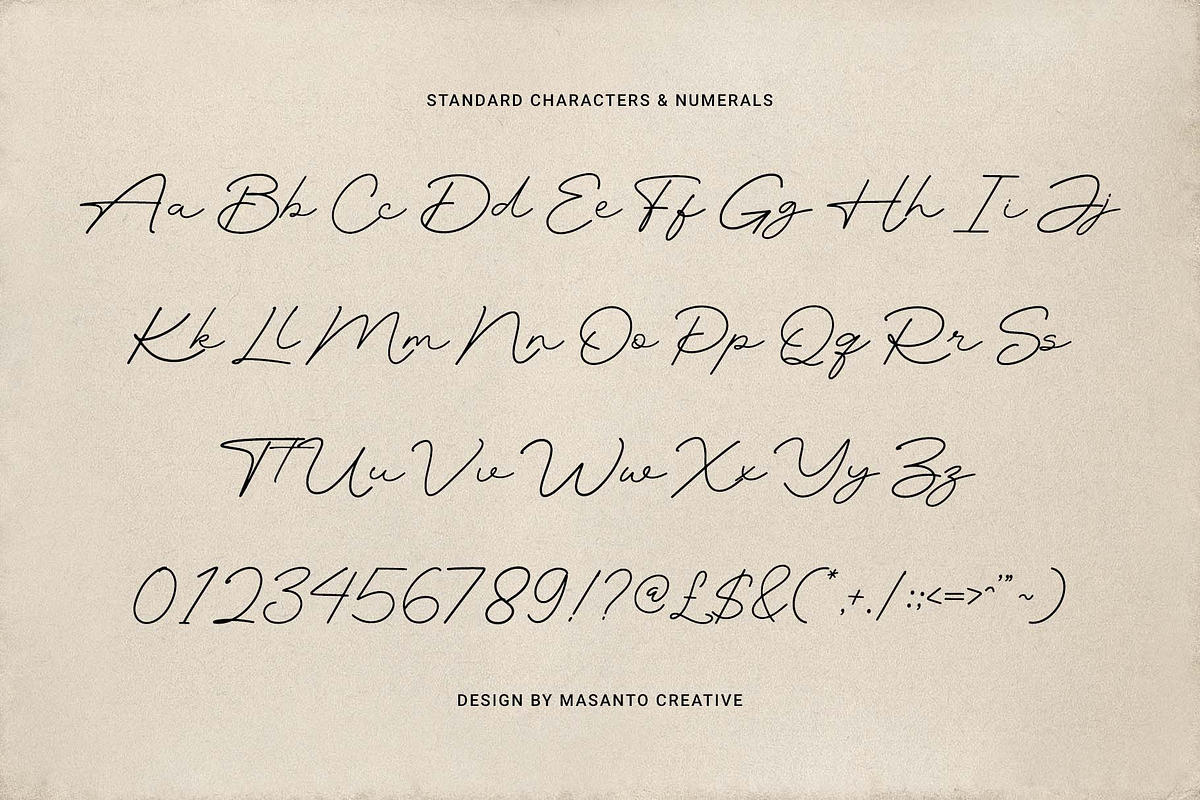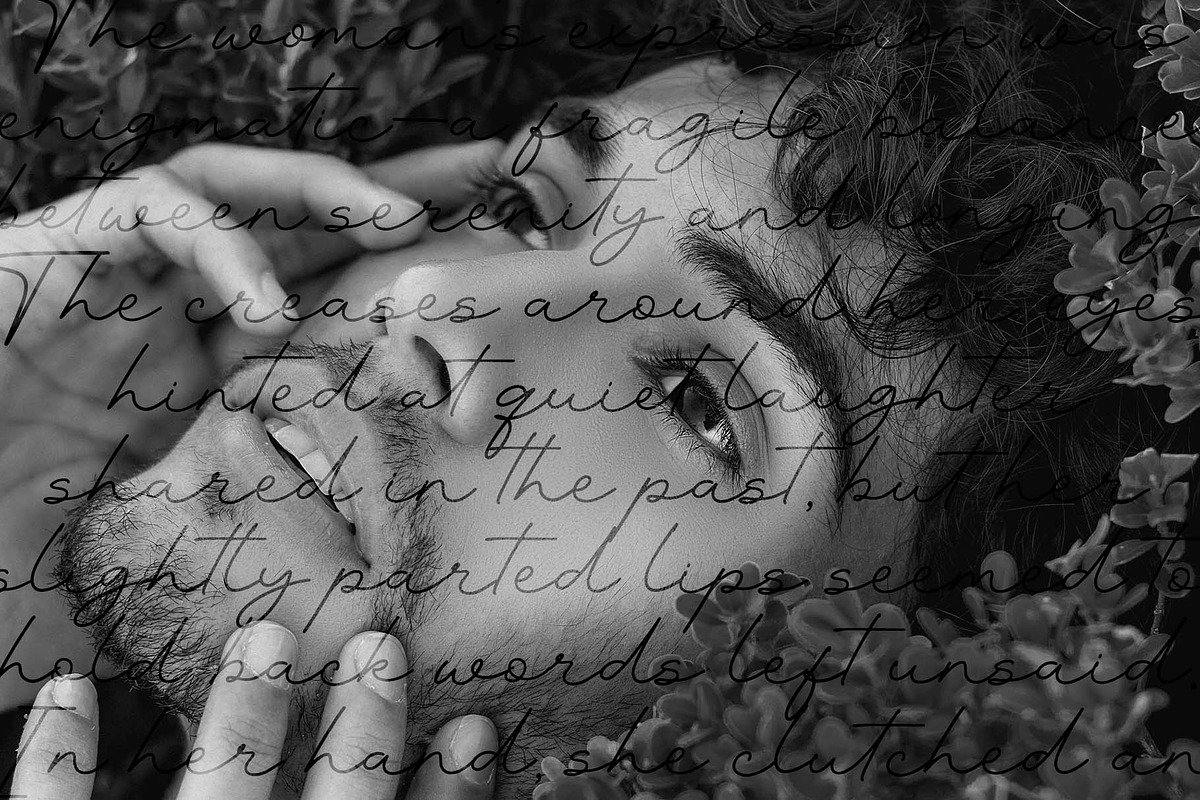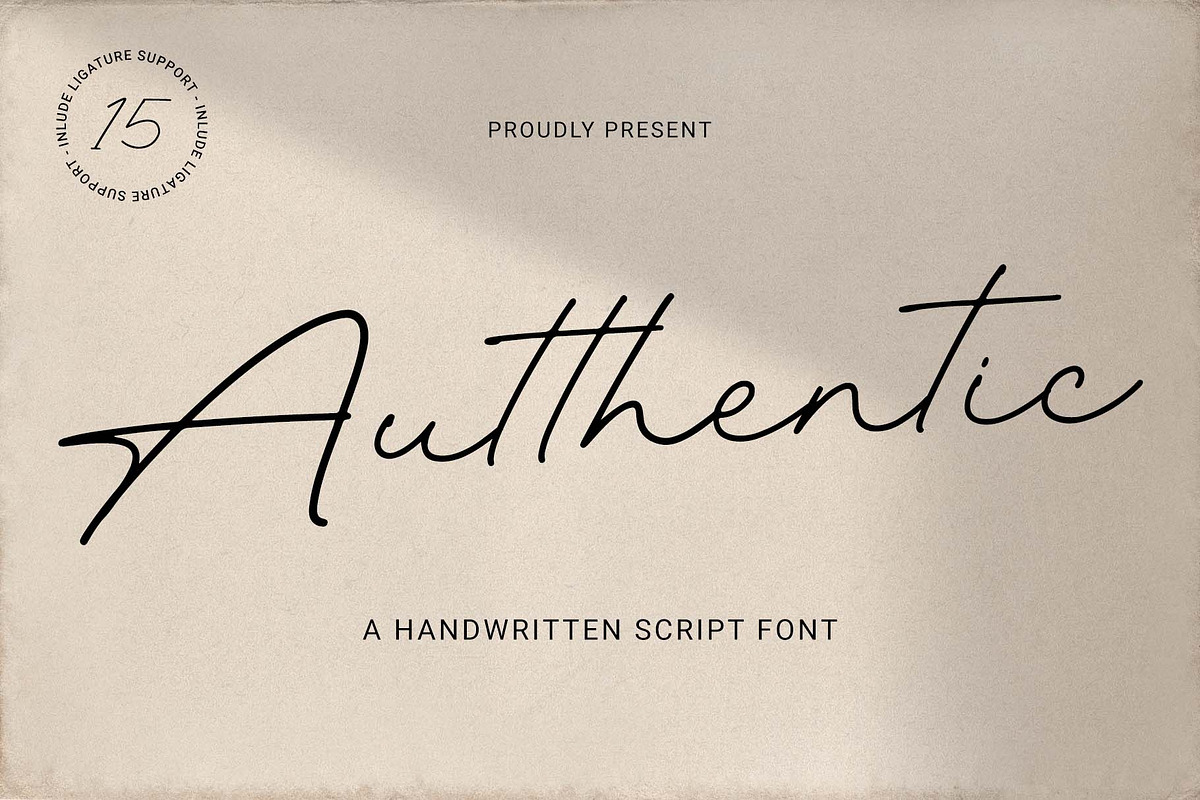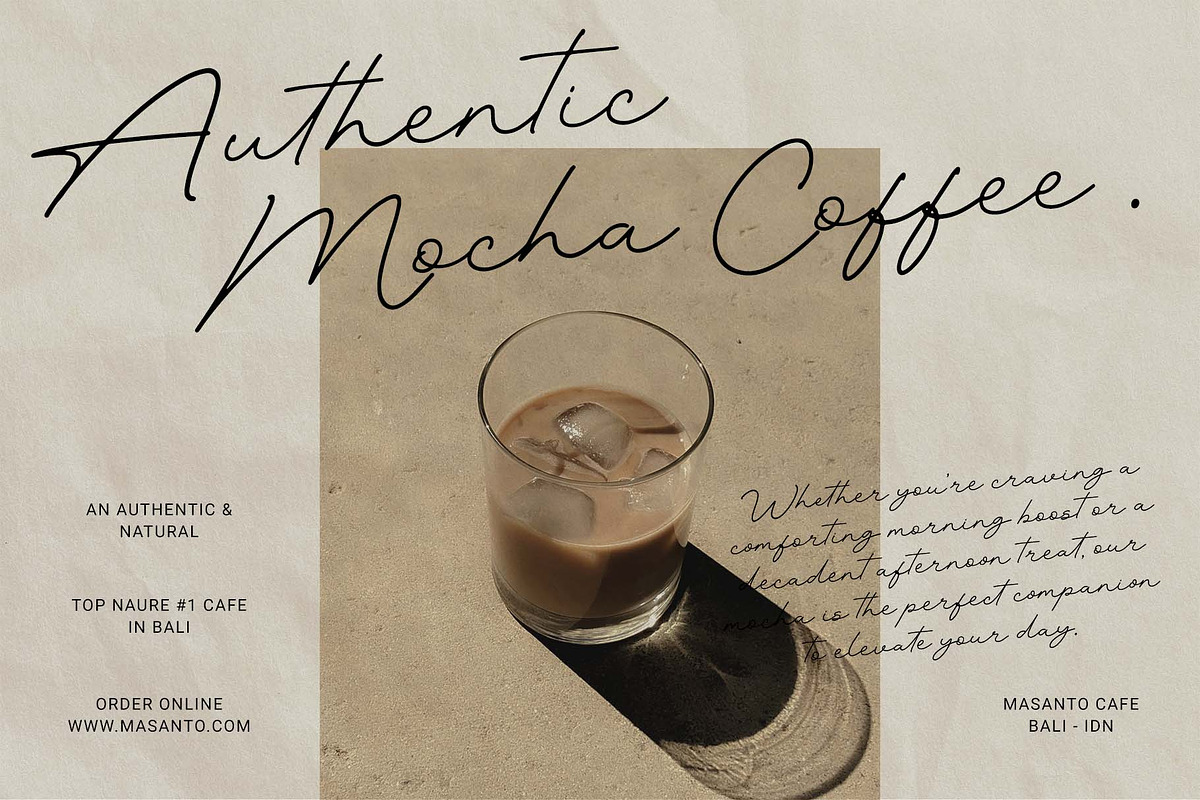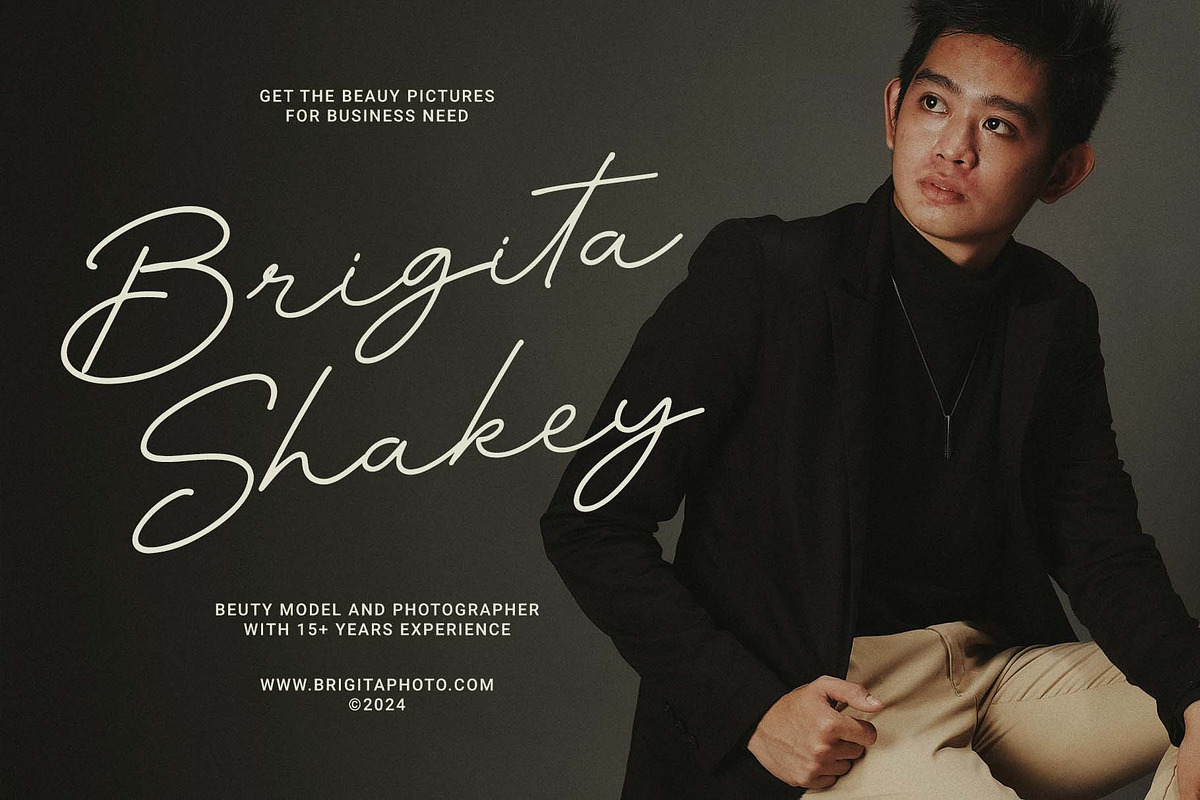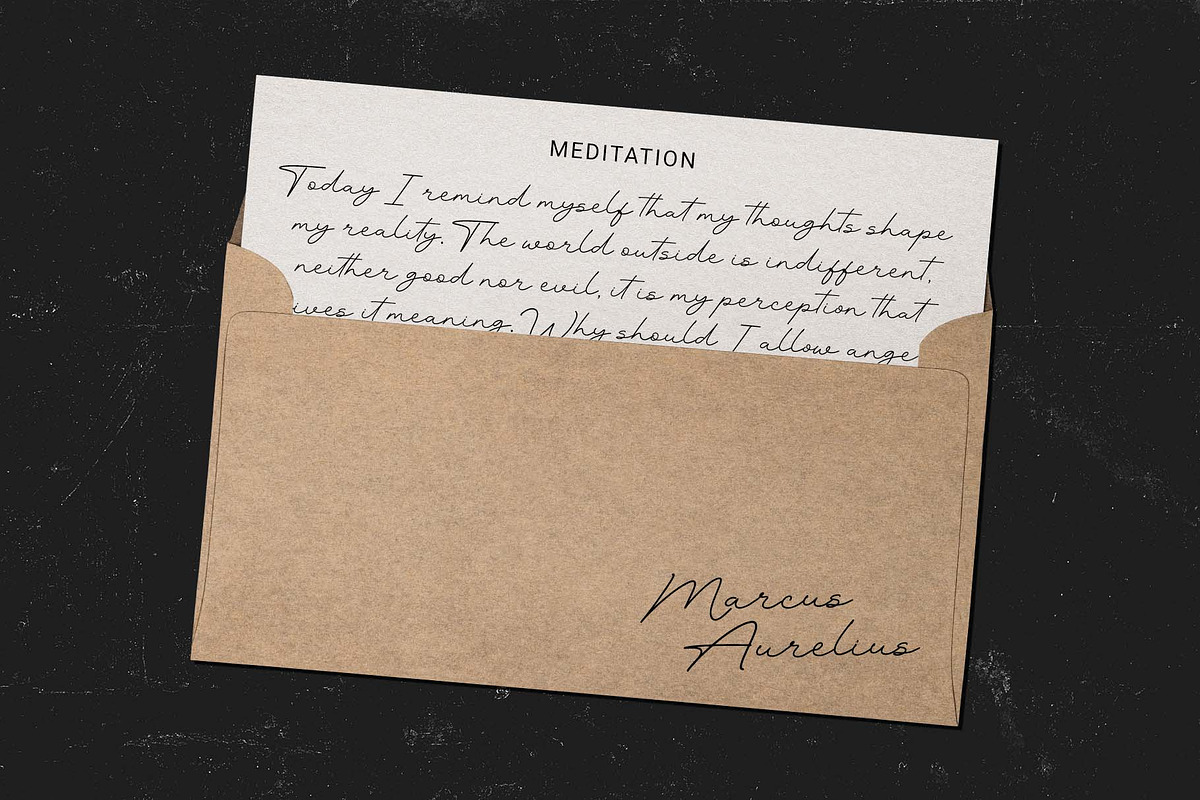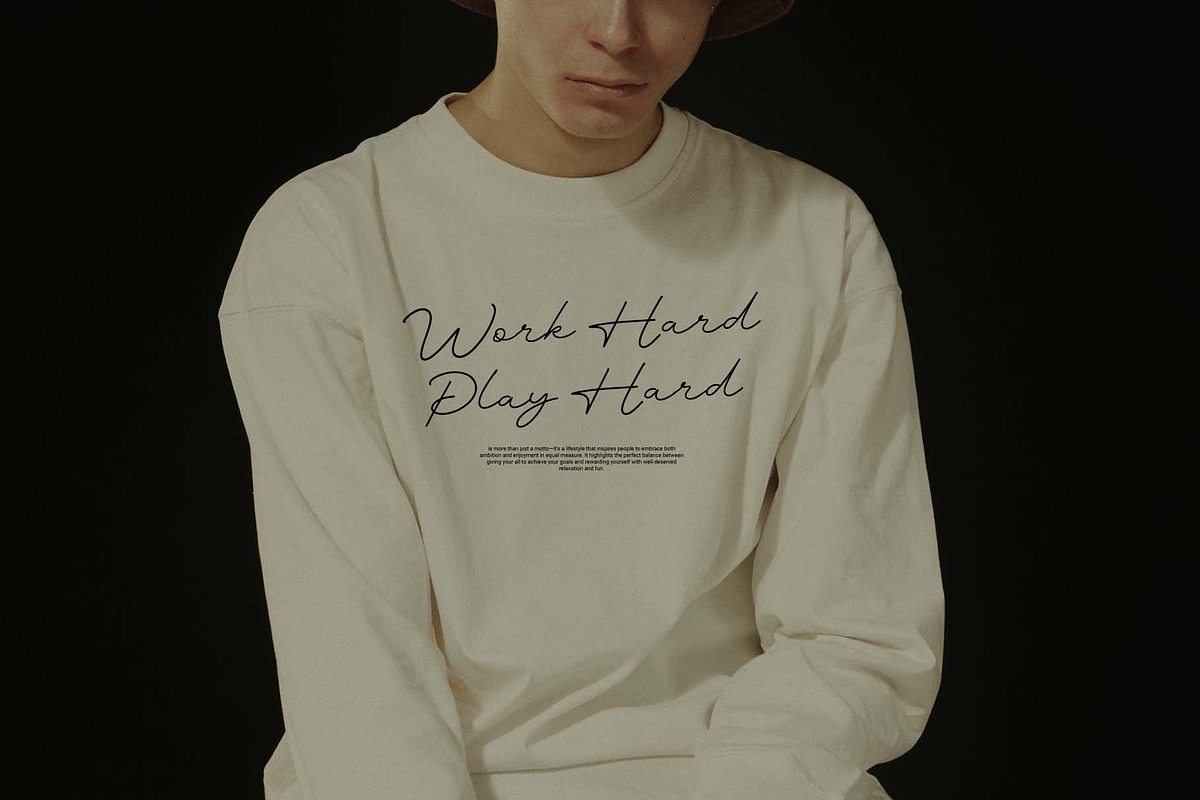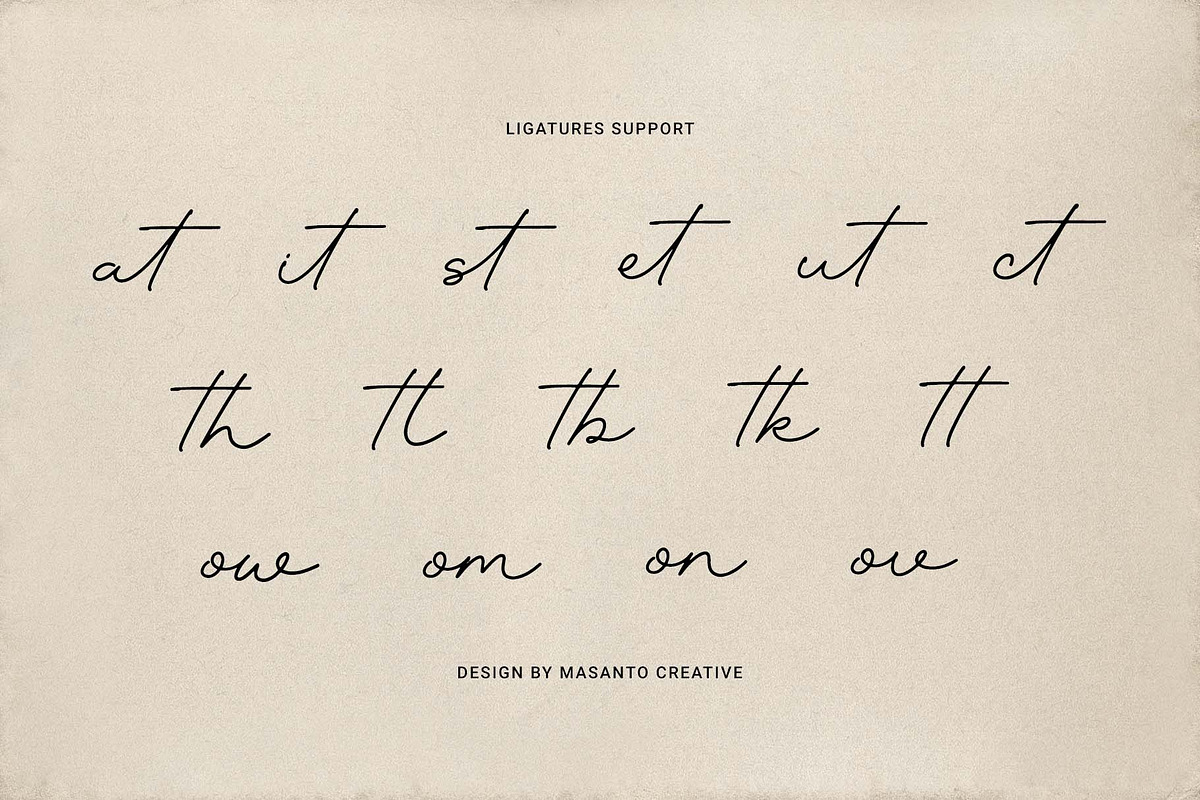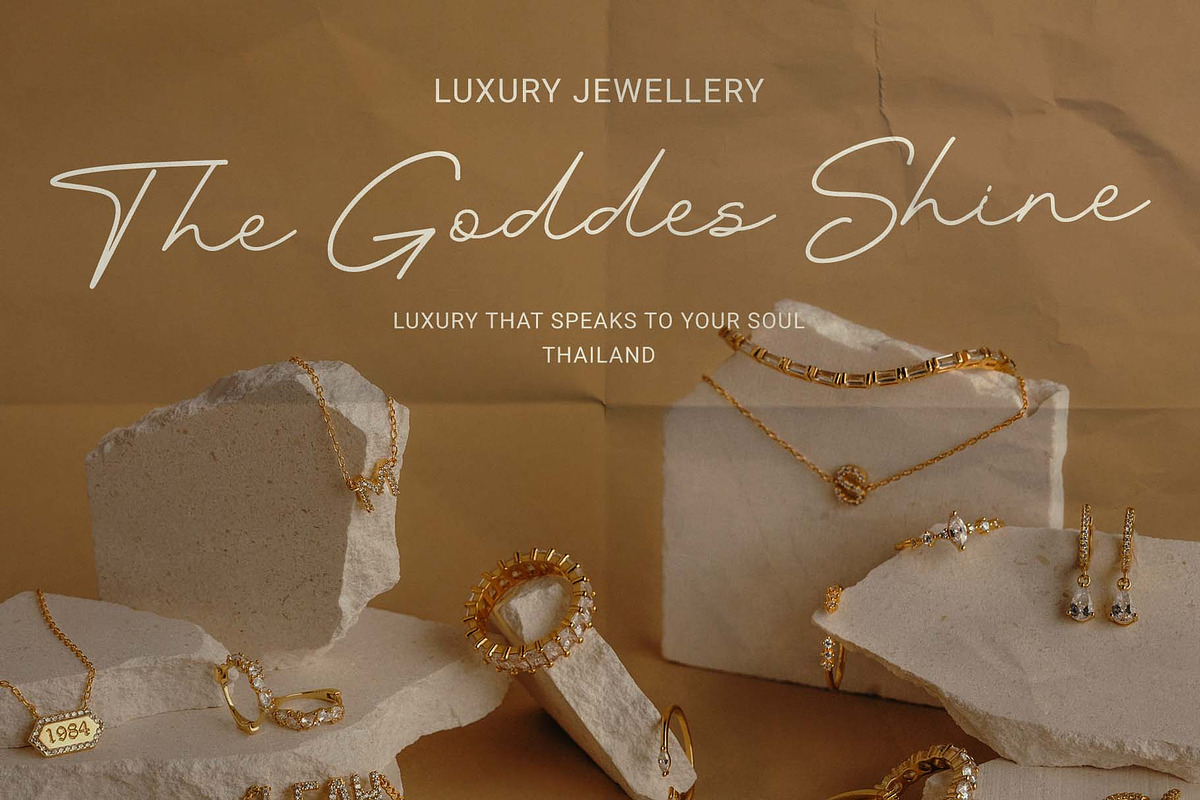
Autthentic – Handwritten Script Font
The Autthentic font is a handwritten script font that exudes elegance and modernity. With smooth strokes and a natural appearance, this font is perfect for a wide range of design needs such as logos, wedding invitations, greeting cards, branding, and social media content.